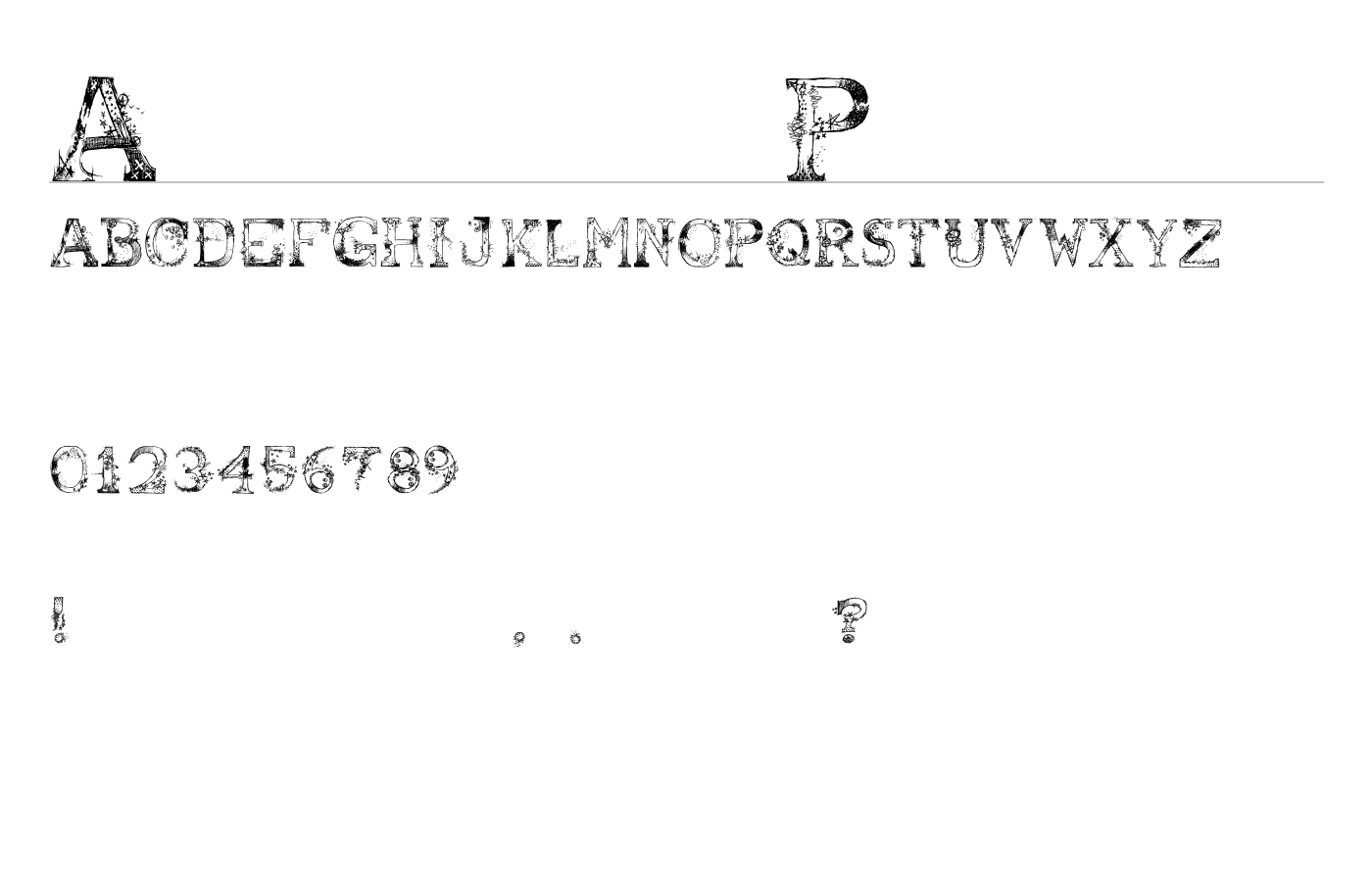
Abusive Pencil Font is a distressed serif typeface featuring uppercase letters and numerals with a textured, worn look that mimics rough pencil shading and sketchy details. This font conveys a gritty, edgy personality ideal for creative projects, posters, or designs seeking an artistic, handcrafted feel with a vintage yet rebellious touch. Its unique texture and bold serif style make it perfect for eye-catching headlines and branding that demands a strong visual impact.
Abusive Pencil Font